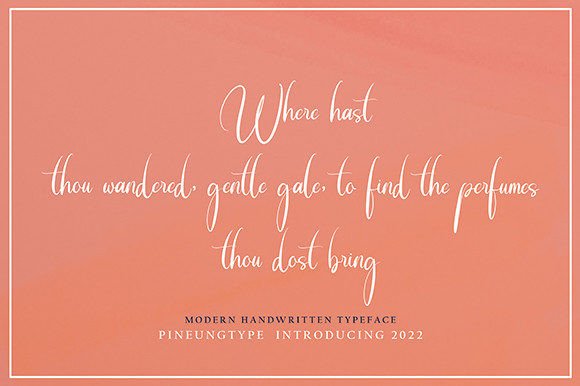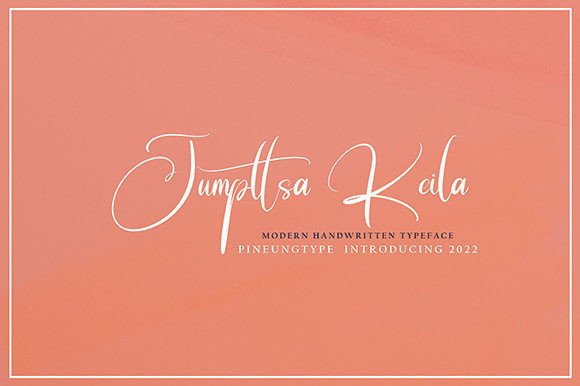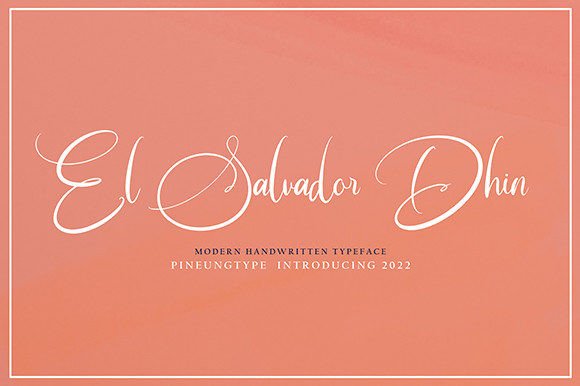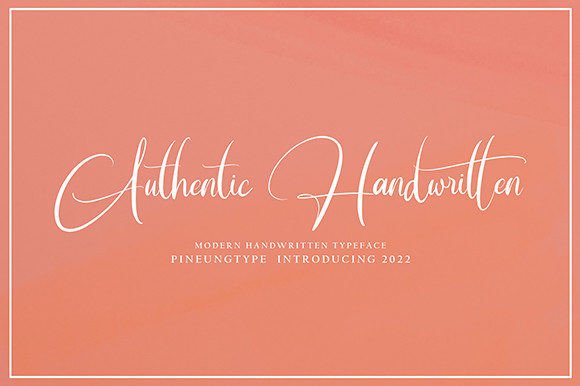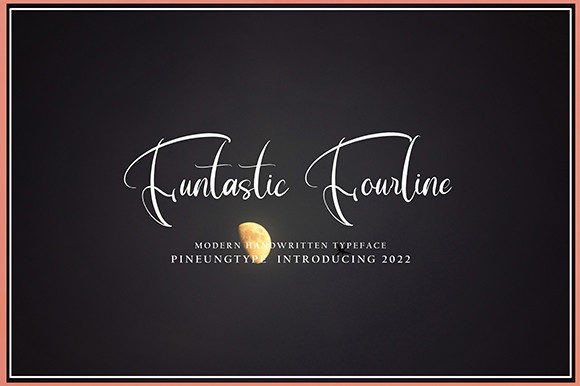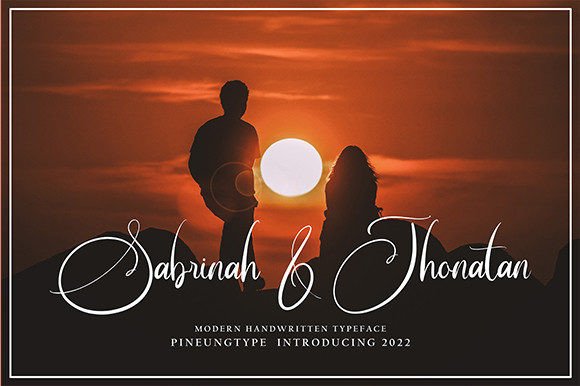
The Bobsentto Font: A Fresh and Flowing Script for Your Creative Projects
The Bobsentto font is a fresh and flowing handwritten script that brings a new style to the table. Its versatility makes it perfect for a wide range of projects, including quotes, logos, blog headers, posters, branding, letters, invitations, stationery, and more.
An Honest Review of Bobsentto Font
What I Love About Bobsentto Font
- ✨ Unique and Modern Style: Bobsentto boasts a distinctive and contemporary design that sets it apart from more traditional fonts.
- ✅ Ease of Readability: Despite its elegant and cursive nature, Bobsentto remains highly legible, making it suitable for both headings and body text.
- 💫 Emotional Connection: The flowing script of Bobsentto evokes a sense of warmth and friendliness, perfect for brands looking to establish a personal connection with their audience.
While Bobsentto is an excellent font, there are a few minor considerations to keep in mind:
- 🤔 Limited Use in Formal Contexts: Due to its casual and artistic nature, Bobsentto might not be the best fit for very formal or corporate projects.
- ⚠️ Glyph and OpenType Feature Support: Some platforms or software might not fully support the advanced OpenType features and glyphs that Bobsentto offers, which could limit its use in certain design applications.
The Story Behind Bobsentto Font
The Bobsentto font was designed with the intention of creating a unique and versatile script that could cater to a wide range of creative projects. Inspired by modern calligraphy and the need for fonts that connect on an emotional level, Bobsentto brings a fresh perspective to the world of typography. Its designer aimed to craft a font that feels both personal and professional, making it an excellent choice for designers, crafters, and creative hobbyists alike.
| Font Name | Bobsentto Font |
| Author | Pineungtype & Missinklab |
Q: Is Bobsentto suitable for body text?
A: While Bobsentto is primarily designed for headings and titles, its readability makes it possible to use for short body texts. However, for longer texts, a more traditional and serif font might be more appropriate.